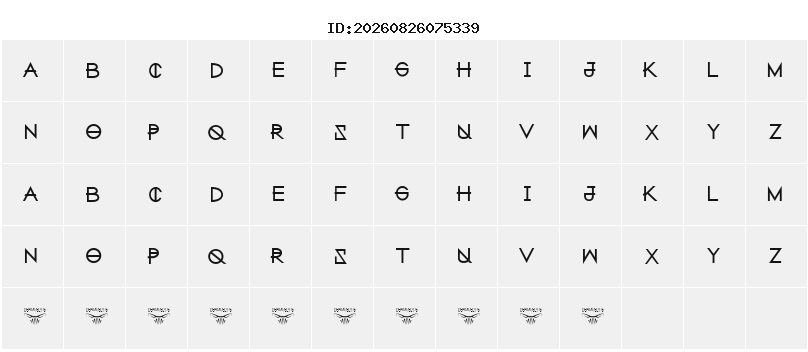
weight in gold Preview
• Font Name: weight in gold
• Full Font Name: weight in gold
• Designer: Draven Depraved
• Manufacturer: Fonts by Depraved
• Description: weight in gold is a font by Fonts by Depraved, designed by Draven Depraved in 2014.
About weight in gold.ttf
weight in gold.ttf is a modern, elegant sans-serif font designed for ultimate readability and visual harmony. Perfect for branding, headlines, web design, and print materials.